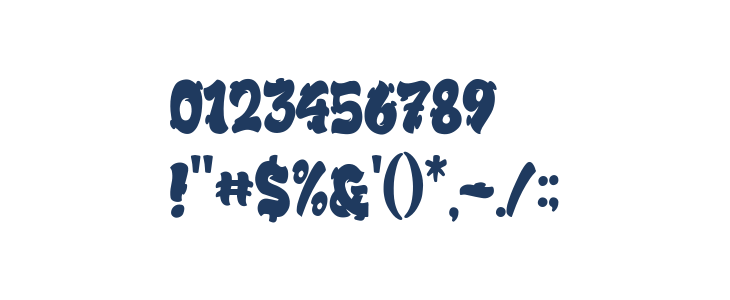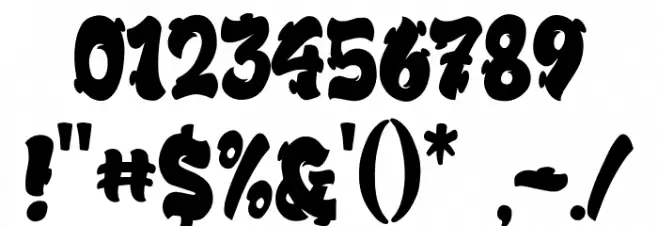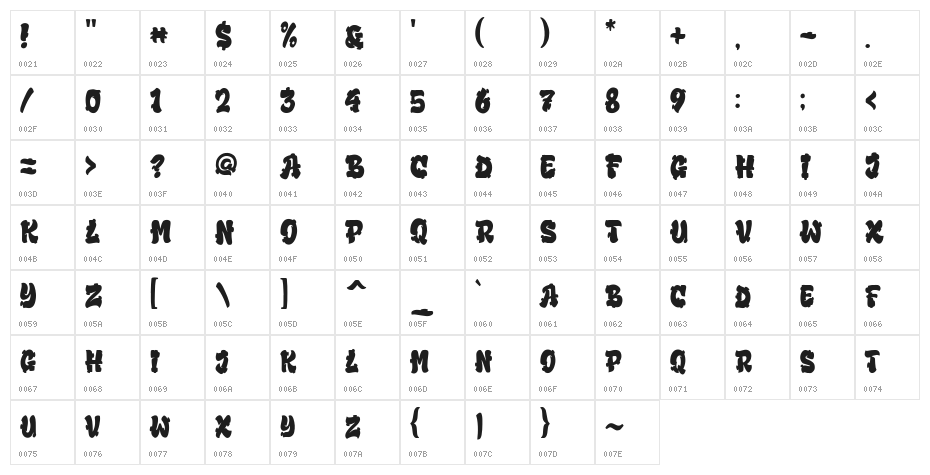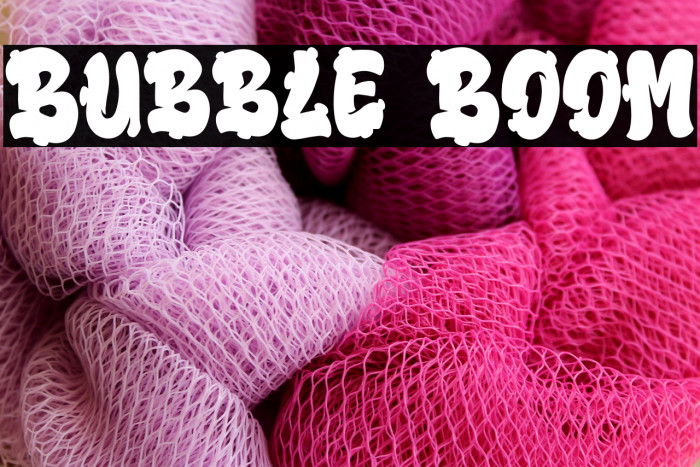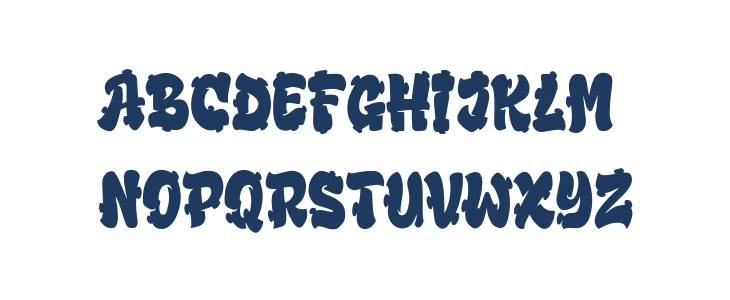
Bubble Boom Font
Bubble Boom Description
This font features a bold and playful style with a bubbly, cartoonish appearance. The characters are heavily stylized with thick strokes and rounded edges, giving them a soft, approachable feel. The uppercase and lowercase letters maintain a consistent weight, creating a cohesive look across the alphabet. Numbers and special characters follow the same design principles, ensuring uniformity. The exaggerated curves and whimsical shapes make it ideal for projects that require a fun and energetic vibe.
A bold, playful font with a bubbly, cartoonish style from Cartoon fonts.
- Proposed Projects: Ideal for children's books, playful branding, party invitations, and comic-style graphics.
- Overall Style: Playful, Cartoonish